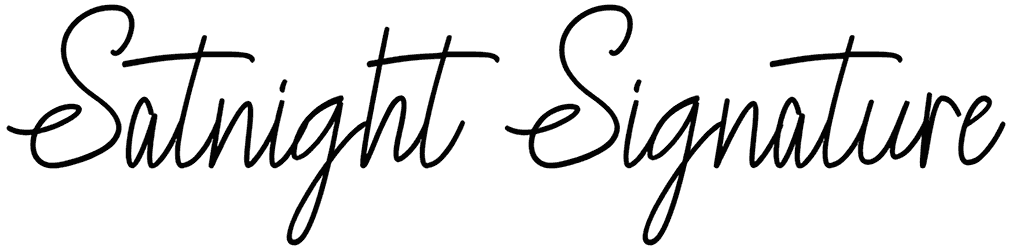
Satnight Signature Font
As an item that has a casual and contemporary style, you can use this calligraphy font for various designs. Satnight Signature font has a thin pen lettering face that would represent an apt option to communicate well wit…
As an item that has a casual and contemporary style, you can use this calligraphy font for various designs. Satnight Signature font has a thin pen lettering face that would represent an apt option to communicate well with your audiences. Place this signature font on your upcoming projects, such as postcards, apparel, branding, or the like, and overjoy the outcomes.